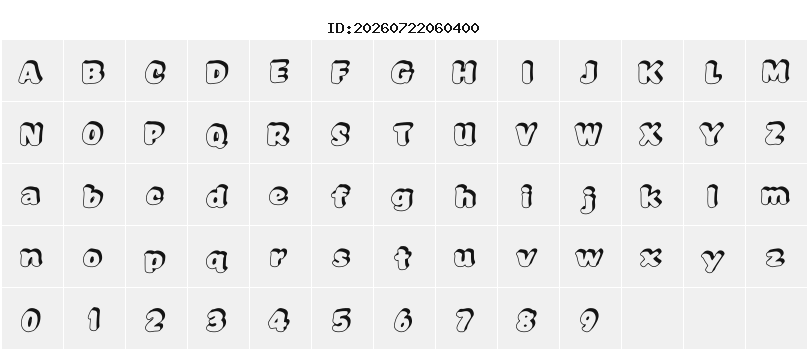
HtWang KanTan-HollowShadowRightUp Preview
• Font Name: HtWang KanTan-HollowShadowRightUp
• Full Font Name: HtWang KanTan-HollowShadowRightUp
• Version: HtWang Fonts(1), March 8, 2001; 1.00, initial release
About HtWang KanTan-HollowShadowRightUp.ttf
HtWang KanTan-HollowShadowRightUp.ttf is a modern, elegant sans-serif font designed for ultimate readability and visual harmony. Perfect for branding, headlines, web design, and print materials.